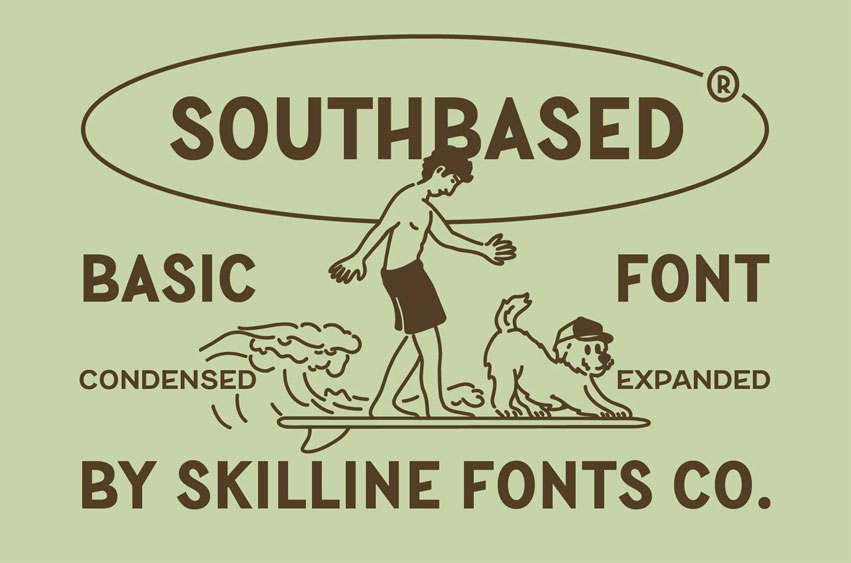
Southbased Font
Southbased Font is a clean retro condensed sans serif font family inspired by vintage surf culture, classic signage lettering, and timeless editorial typography. Designed with confident geometric structure and subtle nostalgic character, it delivers a bold yet highly versatile visual presence.
Featuring multiple width styles including Condensed, Regular, Wide, and Expanded, Southbased offers flexible typographic control for modern branding needs.
• 4 Width Styles: Condensed, Regular, Wide, Expanded
• All Caps Typeface Construction
• Numbers & Extended Punctuation